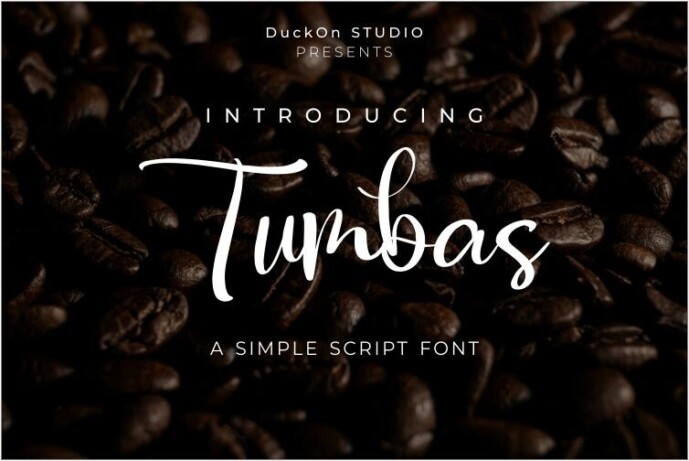
Tumbas Font
Designer: DuckOn
Tumbas is a charming handwritten script font inspired by the warmth and authenticity of local Indonesian culture. Named after the Javanese word for “to buy,” Tumbas captures the human touch found in traditional markets — where every exchange is personal and full of character.
Designed to flow naturally like real handwriting, Tumbas is perfect for branding, invitations, product packaging, café logos, social media quotes, and more. Its smooth curves and casual strokes give it a friendly, approachable feel — great for designs that need a personal and heartfelt voice.
Whether you’re crafting a coffee brand or designing a heartfelt card, Tumbas brings a warm, expressive personality to your work. It’s more than a font — it’s a story waiting to be shared.